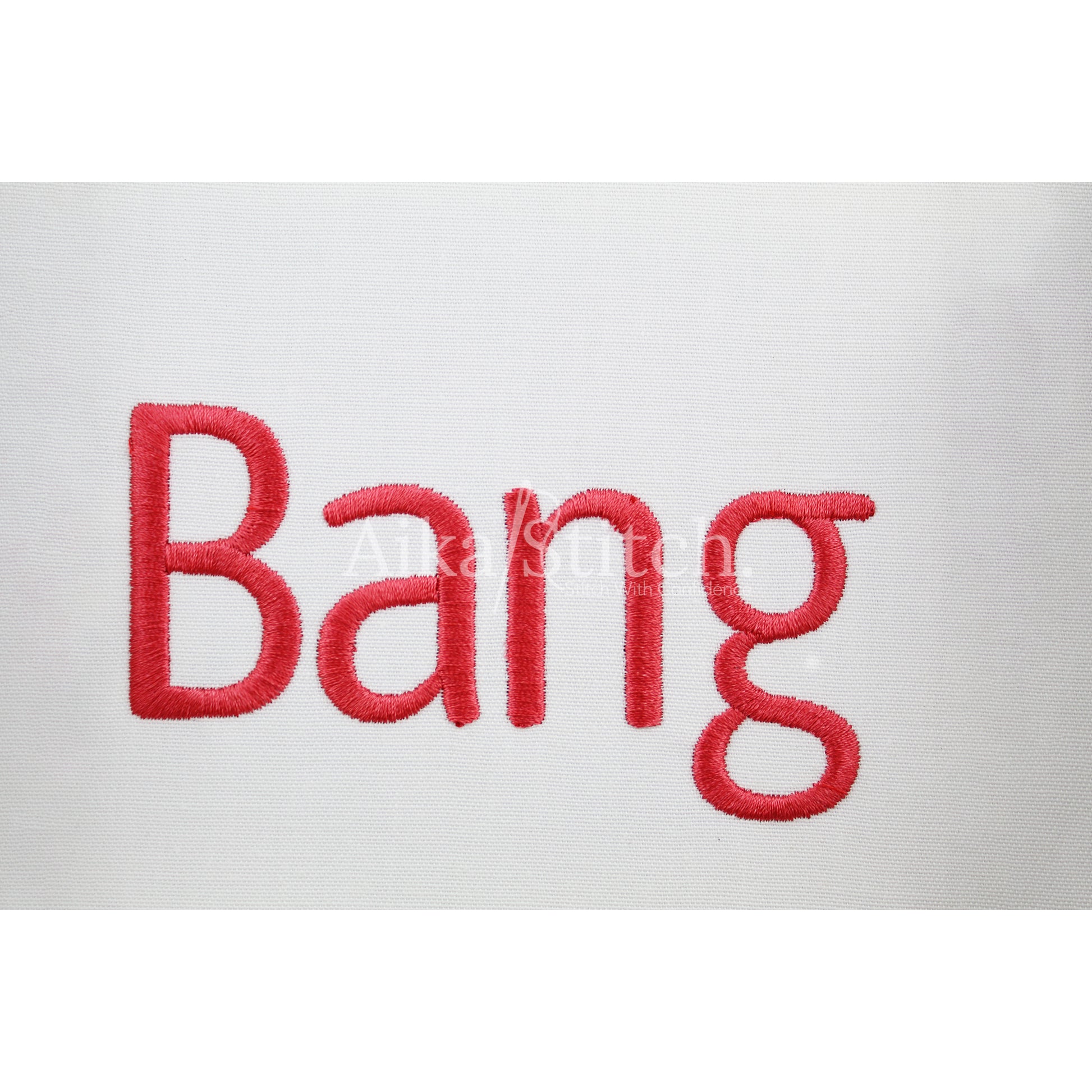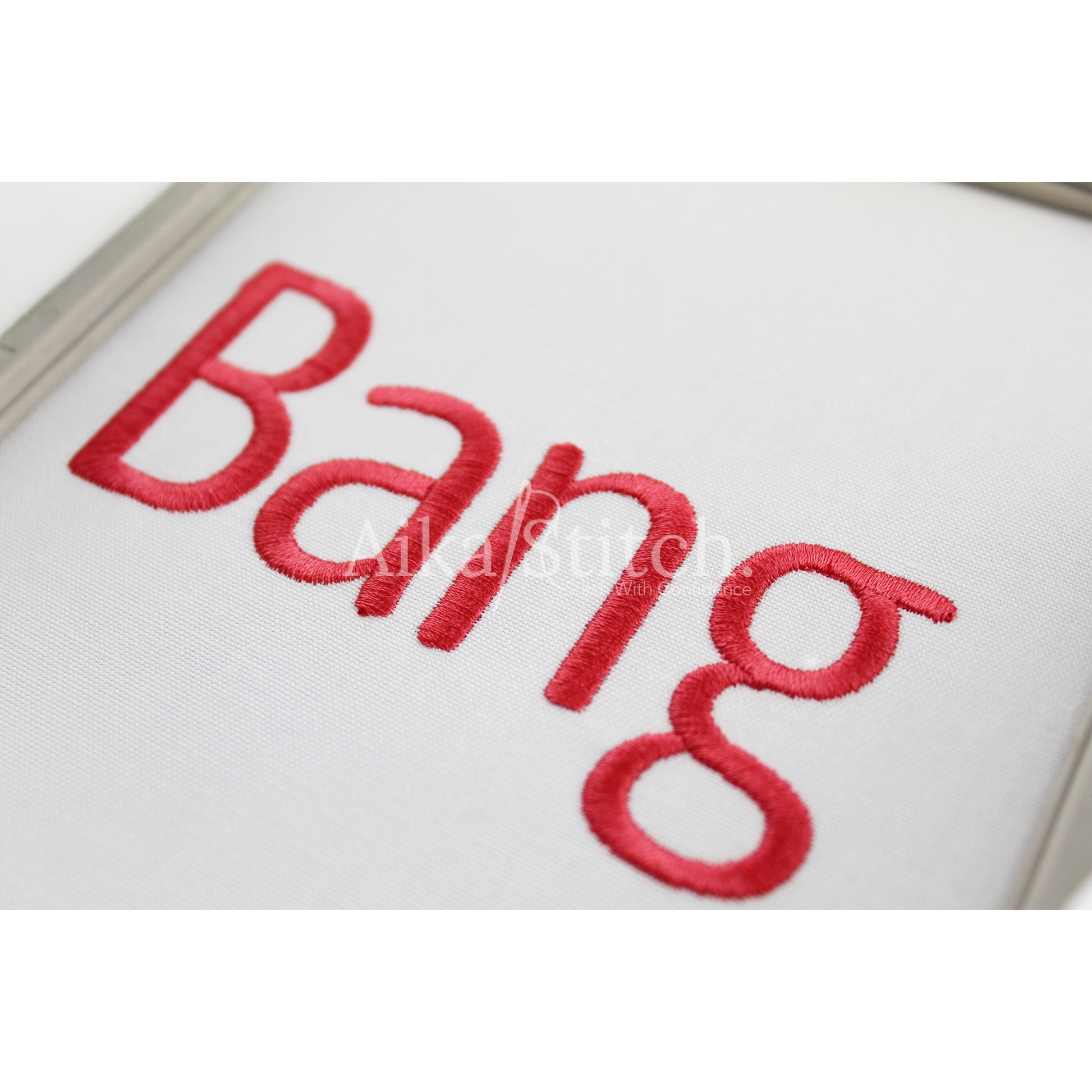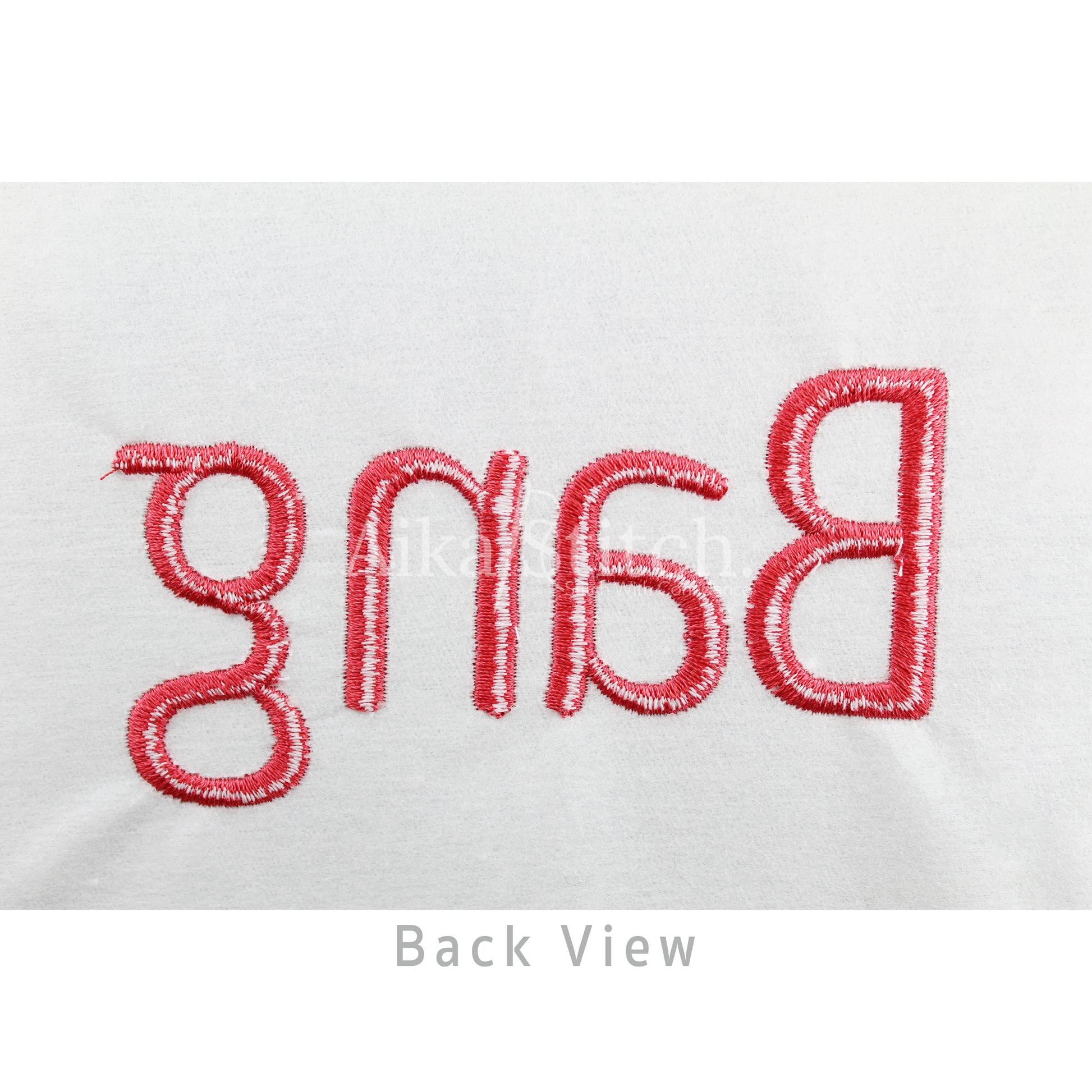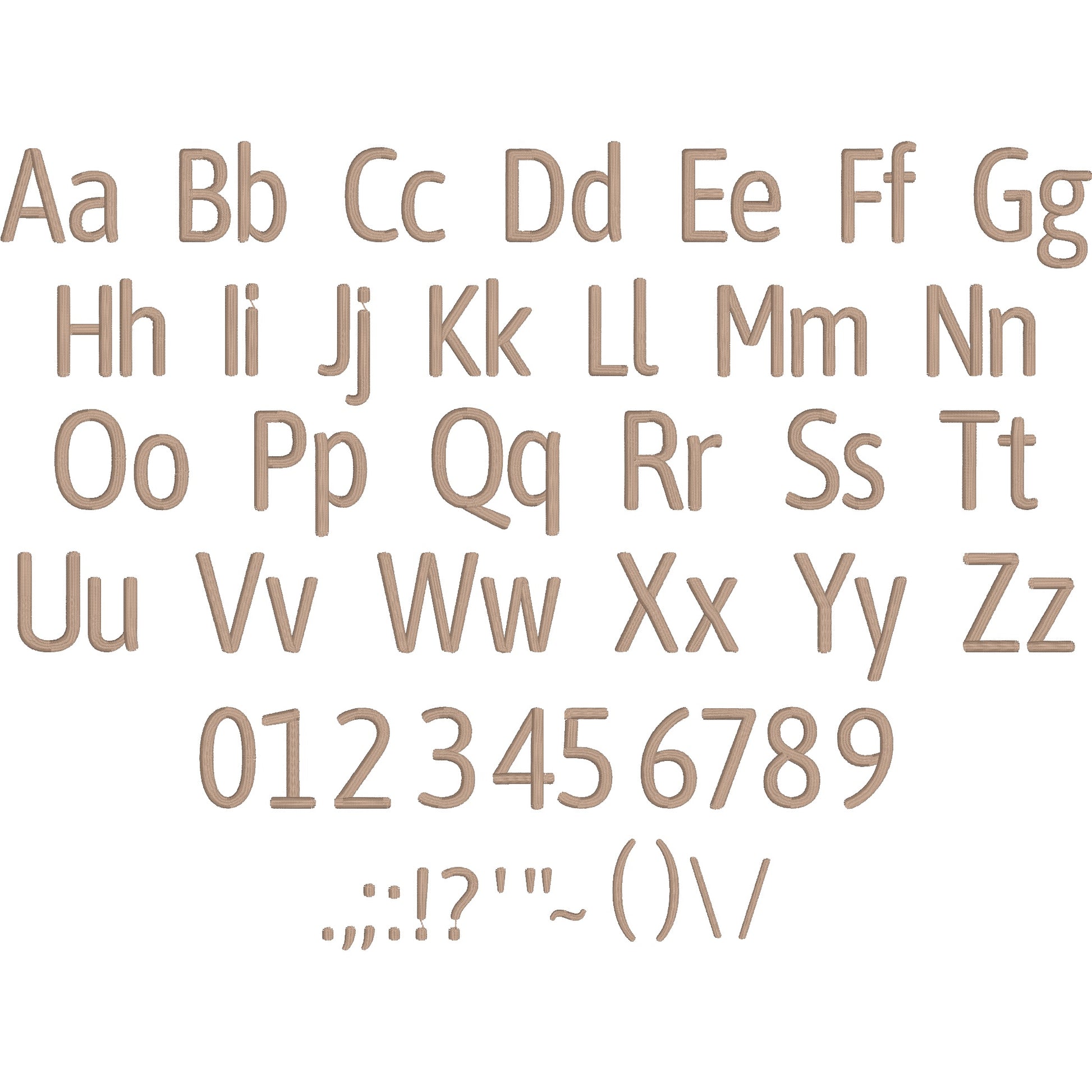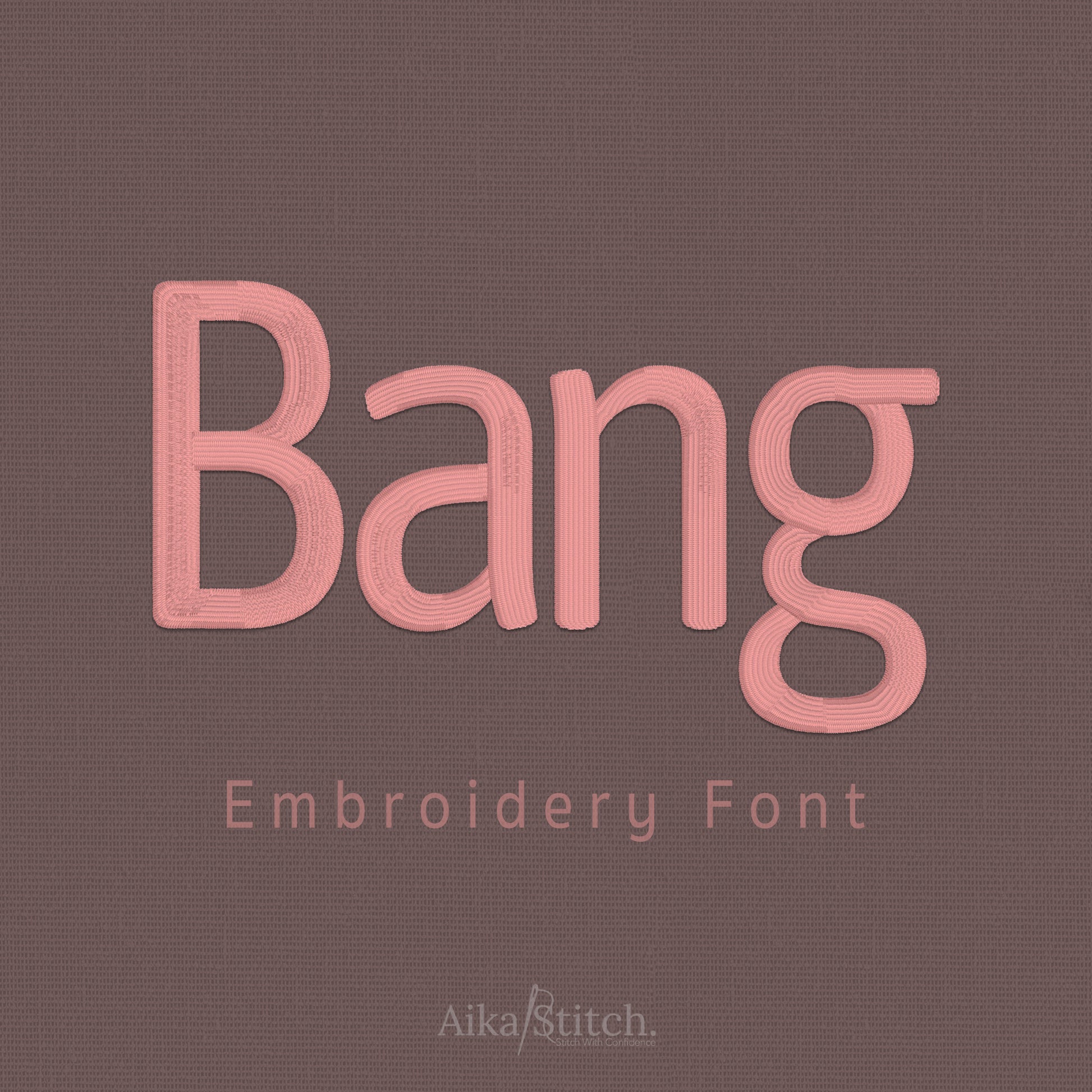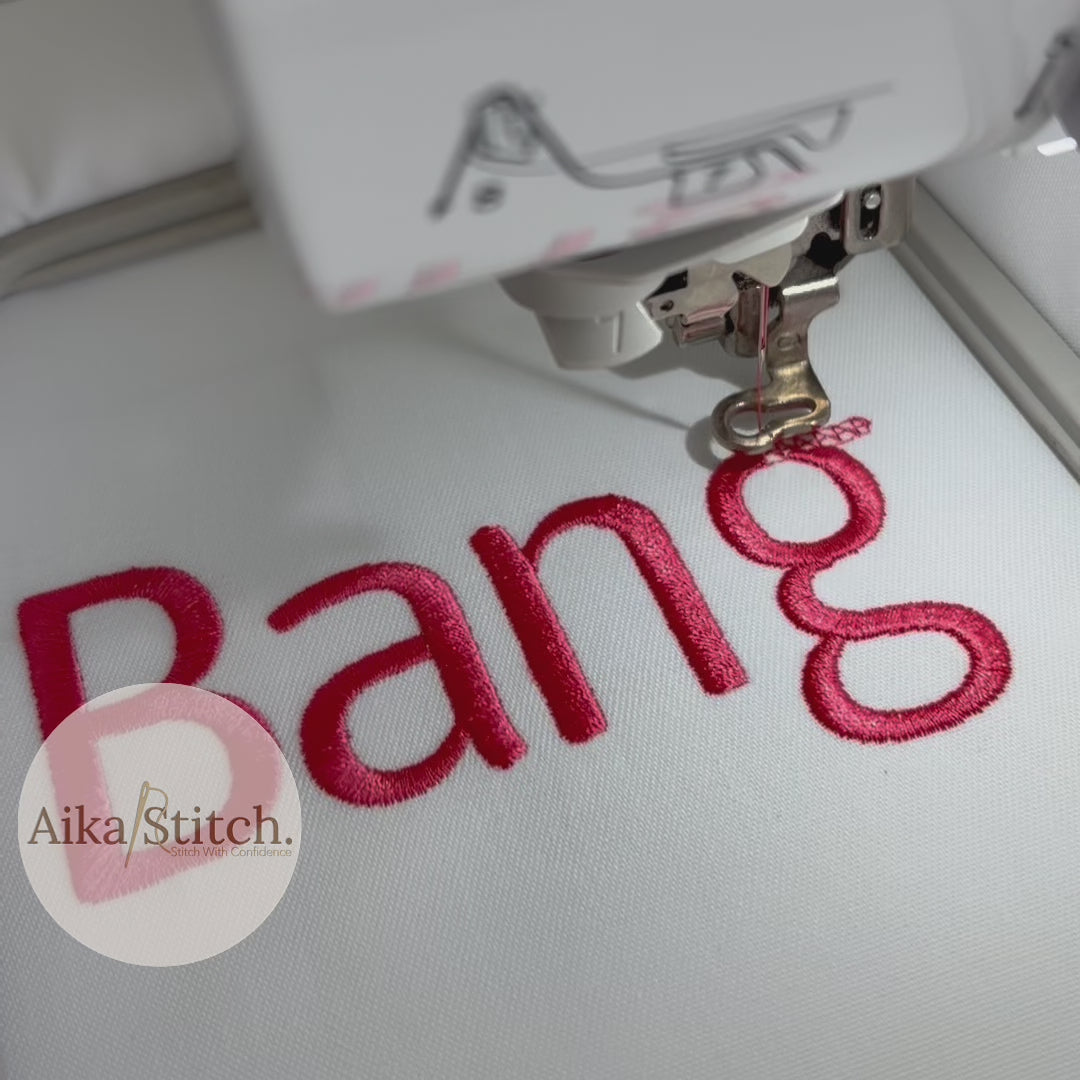
Bang Simple Modern Embroidery Font | Native BX Included
Bang is a Simple Modern Bold machine embroidery font featuring beautiful satin stitch lettering. Perfect for shirts, towels, hats, baby gifts, monograms, and small business embroidery projects.